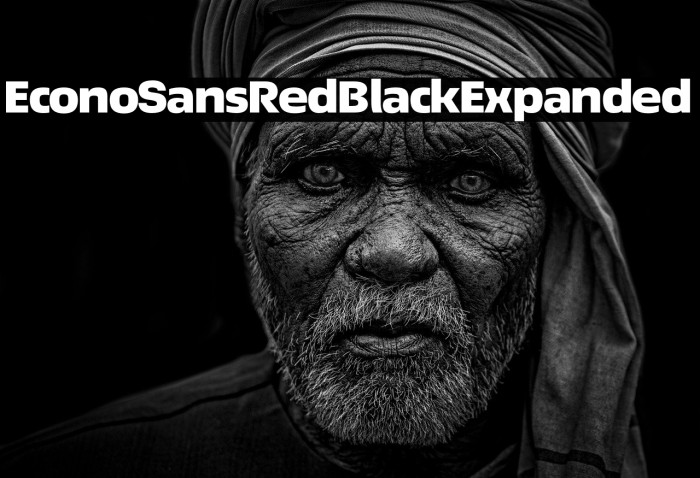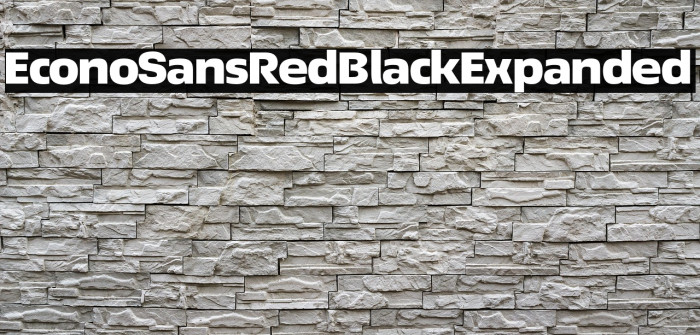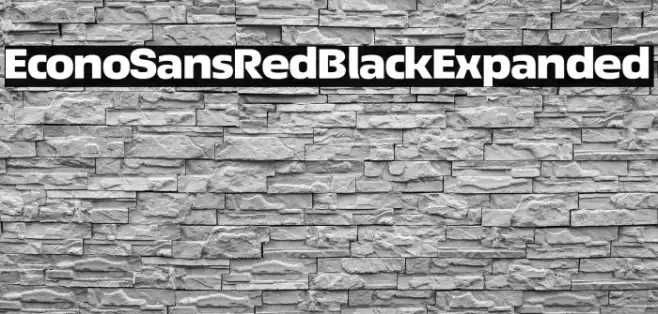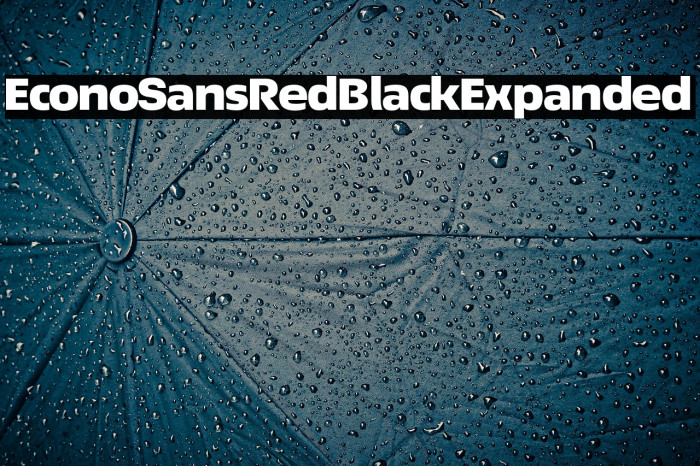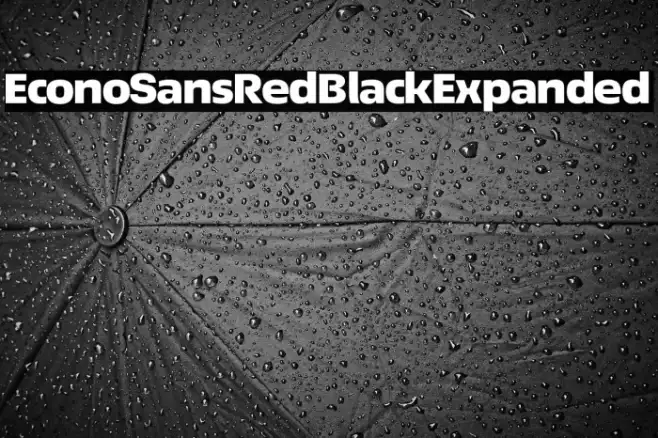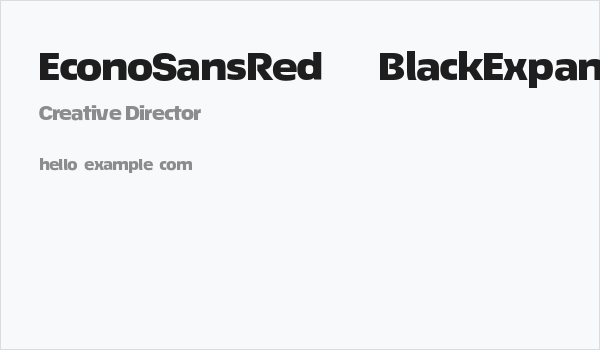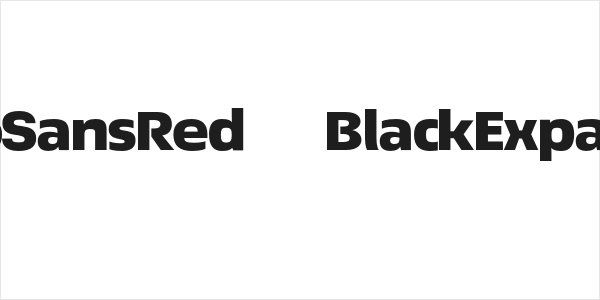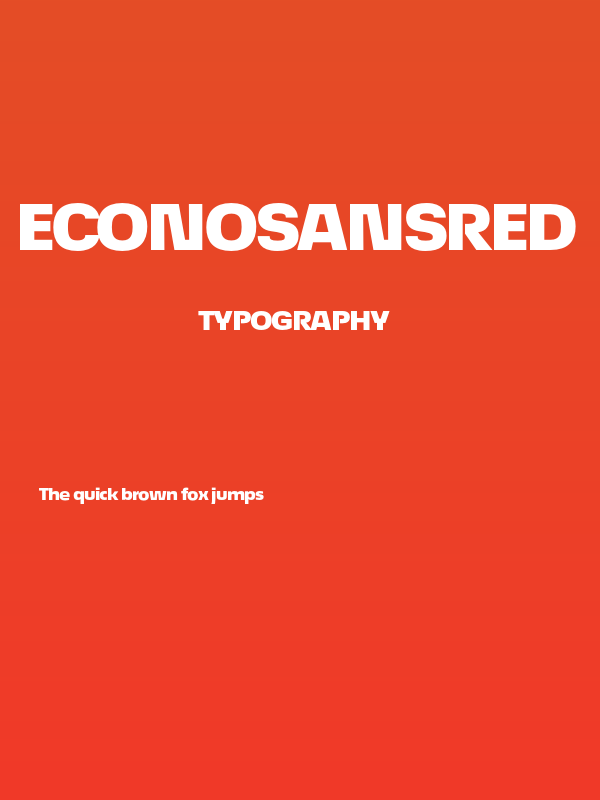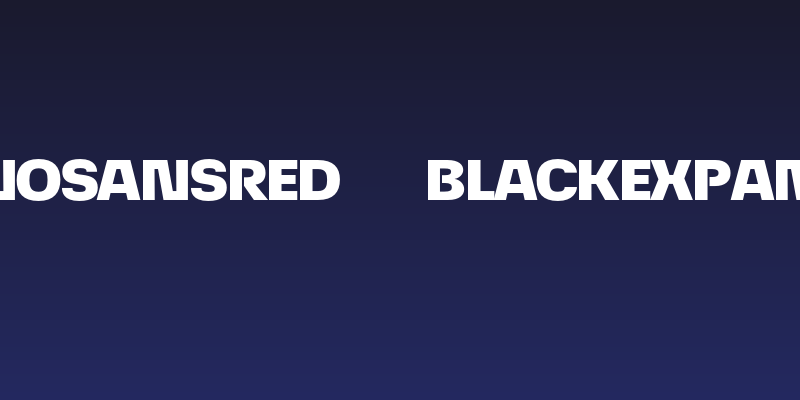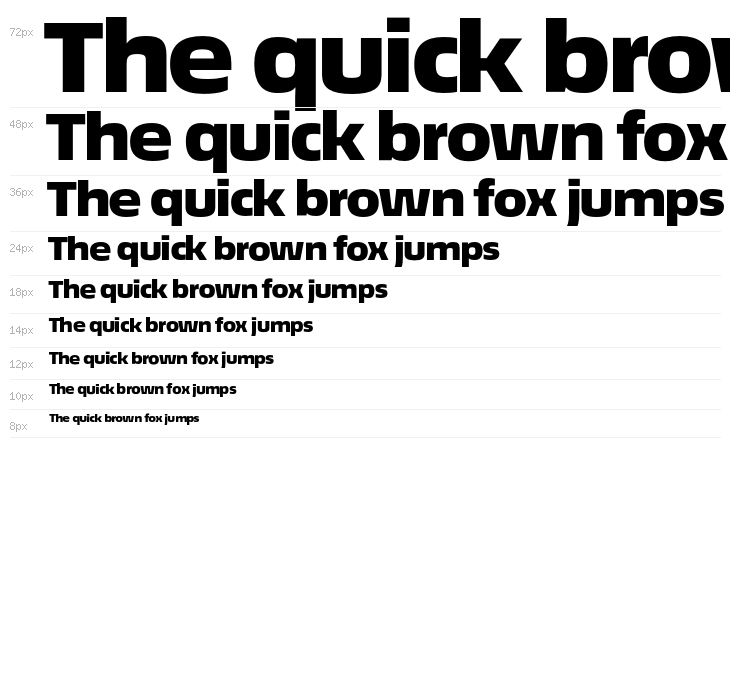
EconoSansRed-93BlackExpanded Font
EconoSansRed-93BlackExpanded Description
This typeface features bold, expansive letterforms with a strong presence. The characters are uniformly thick, providing a robust and impactful appearance. The uppercase letters exhibit a geometric style with consistent stroke widths, while the lowercase letters maintain a similar weight, ensuring visual harmony. The font's expanded width enhances its readability and makes it suitable for attention-grabbing designs. Its modern aesthetic is complemented by a clean and straightforward design, making it versatile for various applications. The numerals and special characters are designed to match the boldness and clarity of the alphabet, ensuring consistency throughout.
| Proposed Projects | Ideal for branding, headlines, posters, and any design requiring a strong visual impact. |